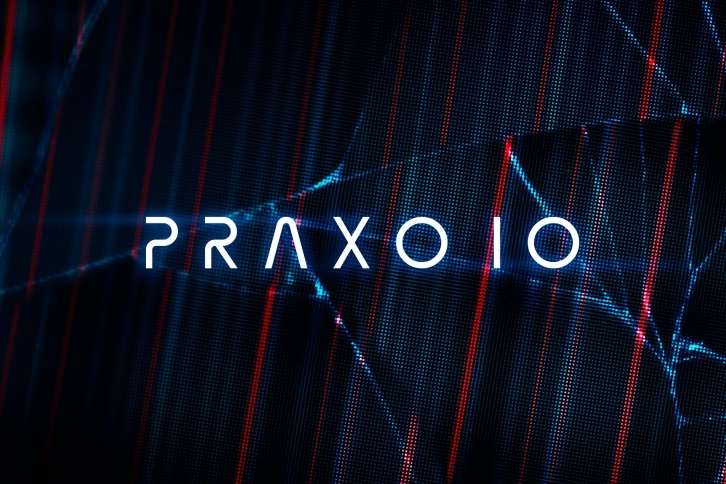
New step into the modern era. Praxo iO is an outstanding designed letters silhouette and passionately crafted futuristic vibe within both font versions. Multi-weights and huge character set provide flexibility across your workflow.